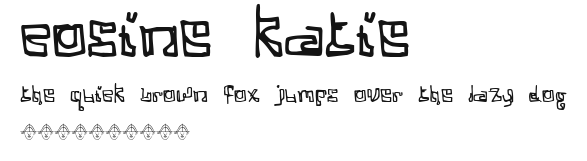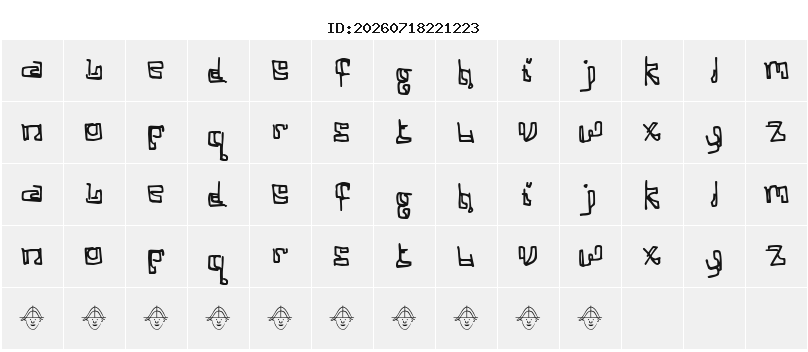
• Font Name: Cosine Katie
• Designer: Tom Murphy 7
• Manufacturer: [Divide By Zero] Fonts
• Description: Created by Tom Murphy 7. Strange hand-written techno font. Just the lowercase letters and the most common punctuation. [Divide By Zero] fonts: http://members.aol.com/vroomfonde/ttf/